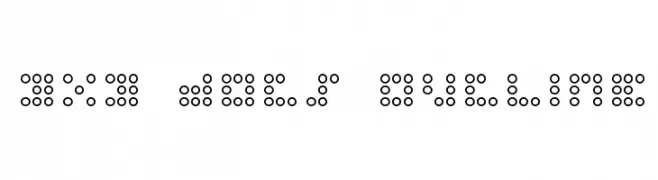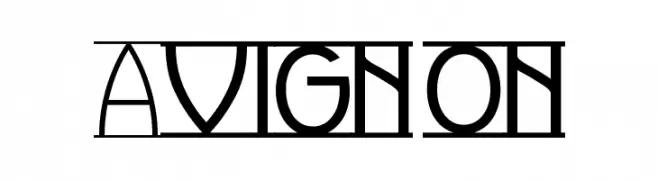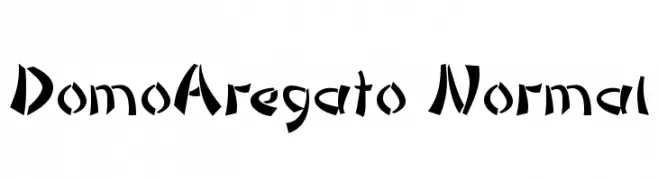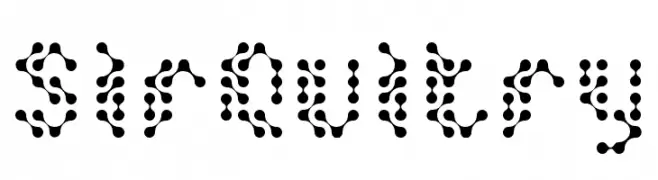
( Fonts by Nick Curtis - www.nicksfonts.com )
An artistic and geometric font with decorative elements and narrow characters.
( Fonts by Dieter Schumacher )
A bold, angular font with a dynamic and geometric style.
( Fonts by www.koenhachmang.com - Glitch )
A playful, dot-based font with a modern, digital aesthetic.
( Fonts by dustBUST - Andreas Nylin )
A modern, tech-inspired font using a 3x3 dot matrix outline.